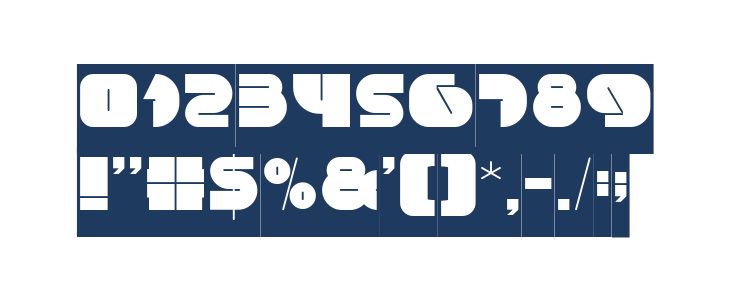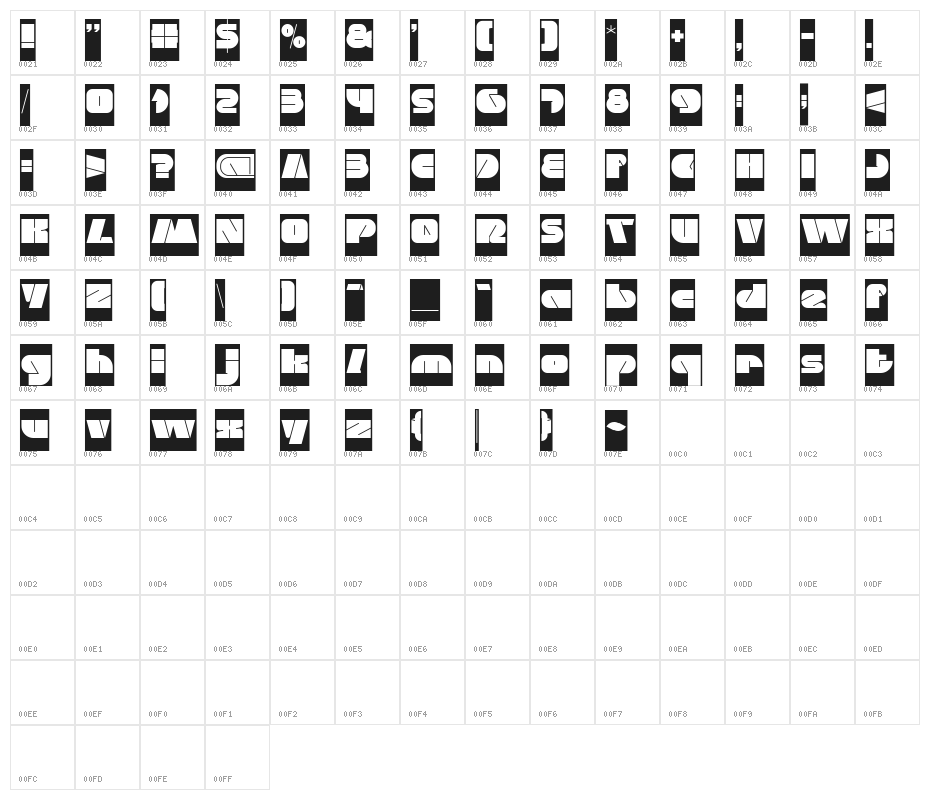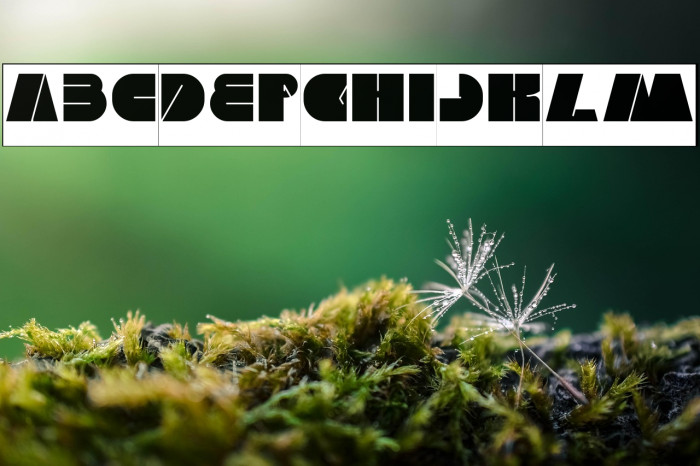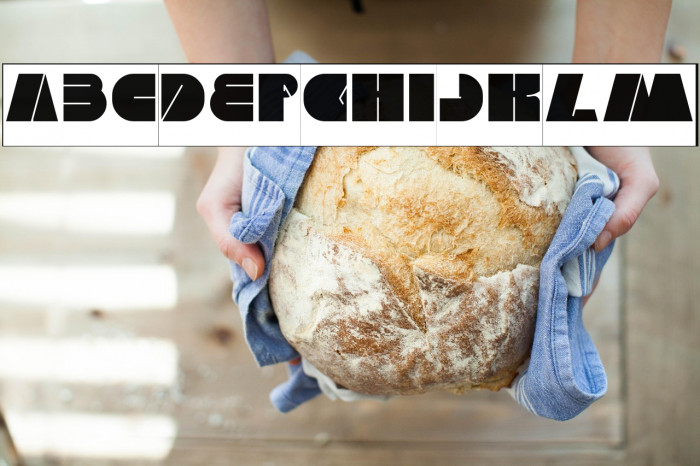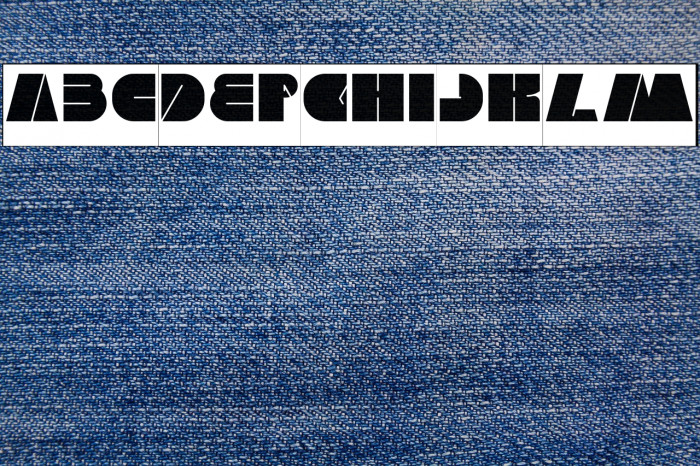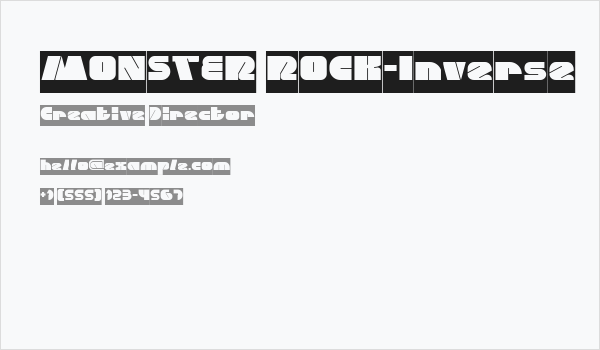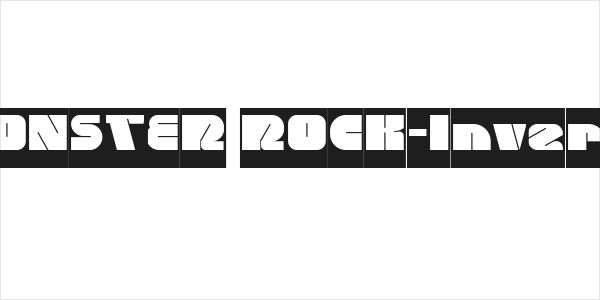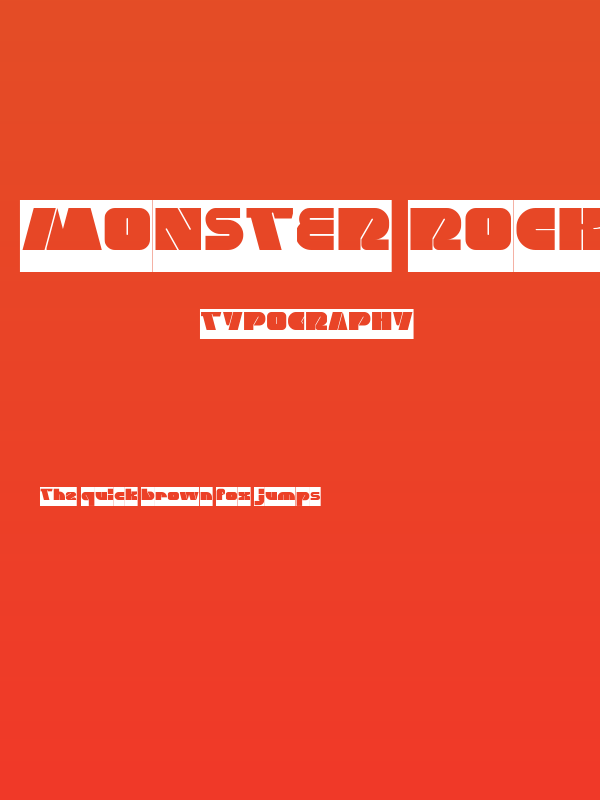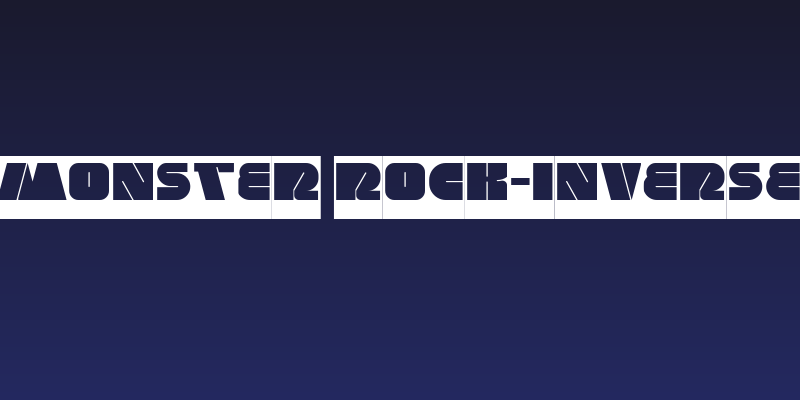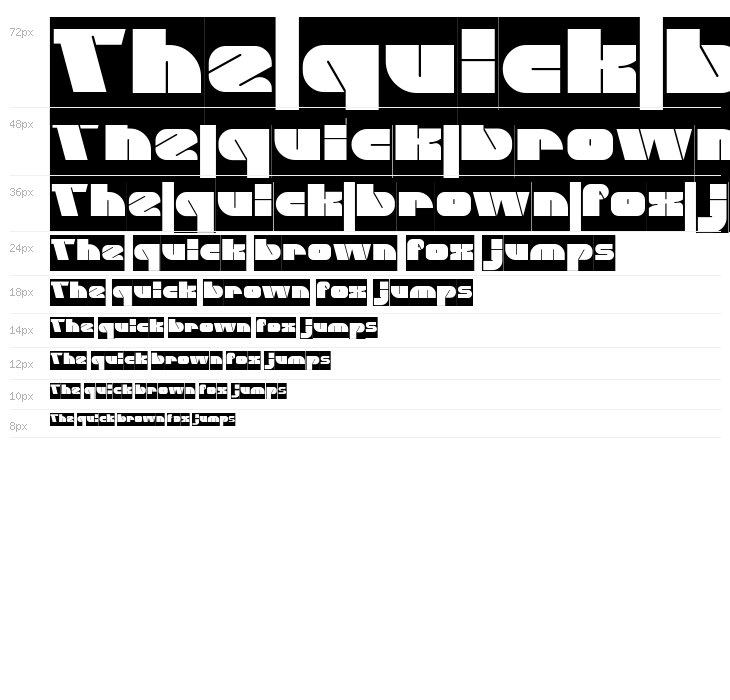
MONSTER ROCK-Inverse Font
MONSTER ROCK-Inverse Description
This bold and striking font features a highly geometric and blocky design, characterized by its thick, angular strokes and sharp edges. The uppercase and lowercase letters maintain a consistent width, creating a uniform appearance across all characters. The numbers and special characters follow the same bold and angular style, ensuring cohesion throughout the font. The high contrast between the thick strokes and the negative space within each character enhances its readability, making it suitable for impactful and attention-grabbing designs. Its unique style is reminiscent of futuristic or industrial themes, making it ideal for projects that require a modern and edgy aesthetic.
| Proposed Projects | Ideal for posters, album covers, video game titles, and branding that requires a bold, futuristic look. |